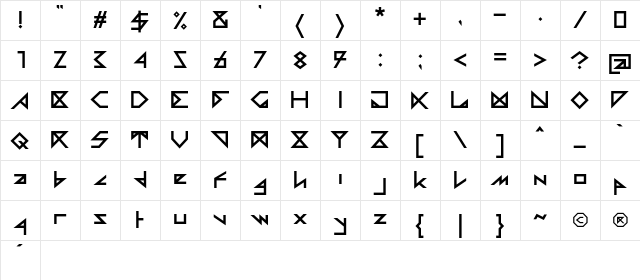
Iber Regular Free Font
Iber Regular
Foundry: polusi polisi
Designer: bestari ibnu rahardjo
Design Context for Iber
Iber is a composed and adaptable typeface that performs quietly and consistently across a wide range of design contexts.